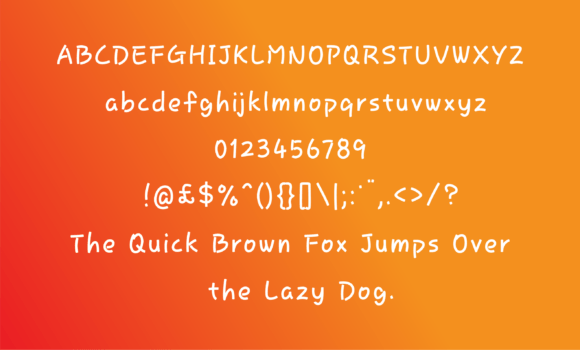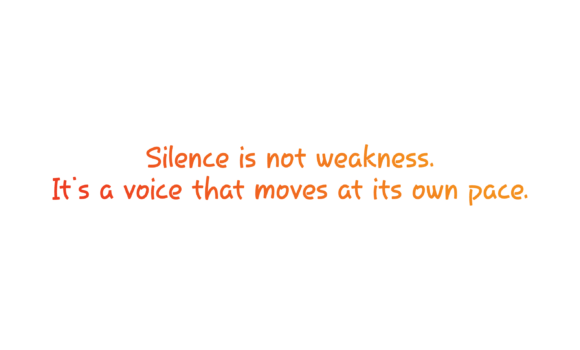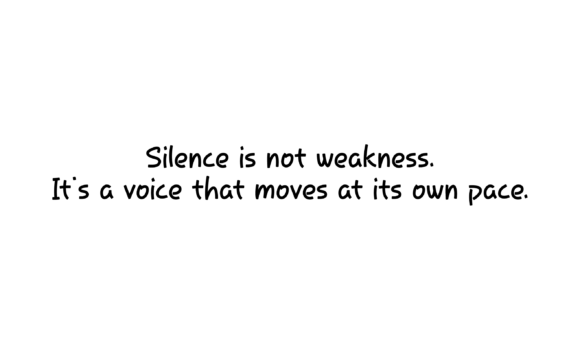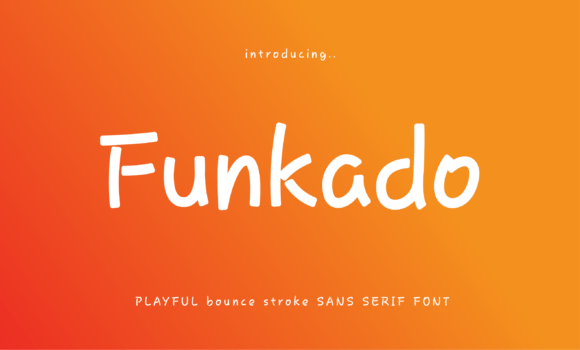
Introduction to Funkado Font
Introducing Funkado, a crisp, exuberant sans-serif display font that exudes a modern funky charm.
Its vivacious curves and spirited rhythm infuse dynamism into headers, logos, and whimsical layouts Designed to be the center of attention, Funkado infuses a lively, contemporary twist into any project while maintaining a sleek, easy-to-read framework.